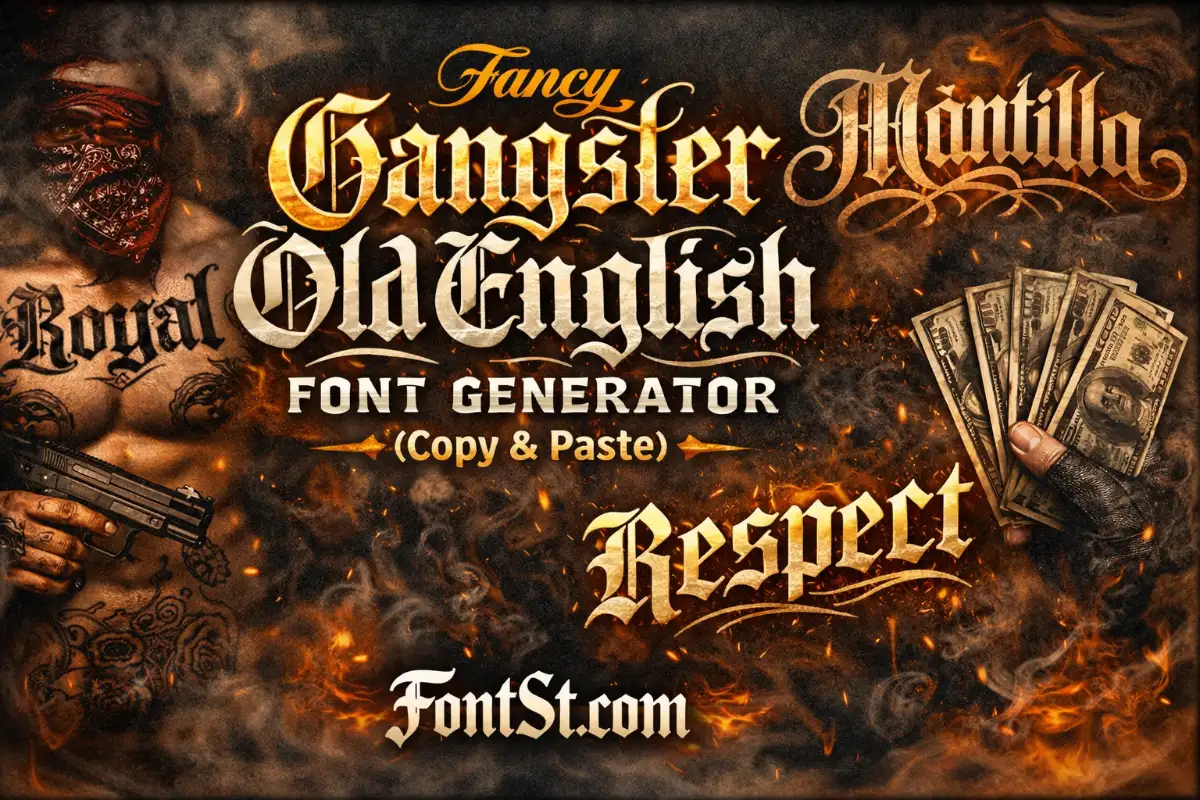
Gangster Font Generator – Numbers & Letters (Copy Paste)
Type your text into the Gangster Font Generator – Numbers & Letters (Copy & Paste) below to get bold street-style lettering instantly. Create names, captions, and number designs in one click, then Copy & Paste the result anywhere you want.
A gangster typeface font is a street-inspired lettering style used for bold identity: names, tags, tattoos, headlines, and social bios. It isn’t one single font. It’s an umbrella term for multiple looks that share a similar vibe—strong, confident, and “street.”
Most people use gangster fonts to get one of these moods:
Old English / Gothic impact (blackletter-style “gangster” look)
Clean bold utility (stencil, block, numbers)
A good gangster typeface should still be readable. The best results usually come from short phrases (1–8 words) or clean number sets (years, codes, lucky numbers).
The phrase original gangsta font usually means “the most authentic classic look” rather than one official font file. Different communities associate “original” with different styles:
a style that matches the context (tattoo vs. graffiti vs. social bio)
On FontSt, the best way to find your “original” is to generate your phrase in multiple gangster outputs and choose the one that feels most natural at the size you’ll actually use.
The best gangster fonts copy and paste are the ones that stay readable after you paste them into your target platform. A style that looks great on a generator page can sometimes feel crowded inside an Instagram bio or a small title overlay.
Quick Picks That Usually Work Everywhere
Clean Chicano lettering for names and short mottos
Old English / Gothic for bold headline impact
Simple script for a smooth “tattoo” vibe
Graffiti handstyle for tags (short words only)
Copy & Paste “Ready” Phrase Templates
Name + number: “Antonio 23”
Short motto: “Stay Solid”
One-word flex: “Respect”
Location/code vibe: “LA 222”
Year statement: “1995”
If you want your text to look premium and not messy, keep it short and choose one strong style instead of stacking multiple effects at once.
gangster numbers fonts are popular for tattoos, jersey-style identity, dates, years, and “lucky number” aesthetics. The key is clarity: numbers should be clean, evenly spaced, and strong at small sizes.
Best Uses For Gangster Numbers
Birth year / anniversary year (e.g., 1995, 2001)
Short codes (e.g., 222, 444)
Area/identity numbers (e.g., 310, 213)
Minimal number-only tattoos
Make Numbers Look Like A Real Design
Keep numbers on one line
Add spacing if the style is heavy
Avoid extra symbols between digits
Preview at intended size (numbers can blur if too detailed)
If you’re combining numbers with lettering, try a two-line layout:
A calligraphy gangster font is usually a more refined, “crafted” version of gangster lettering—still bold, but with better rhythm and a premium feel. It’s often used for:
One-word statements (“Loyal”, “Family”, “Real”)
Short titles that need elegance
Tattoos that want style without looking chaotic
How To Keep Calligraphy Gangster Text Clean
Stick to 1–3 words
Avoid extra symbols around the text
Choose the output with the clearest inner shapes
Use strong contrast and spacing if placing it on an image
Calligraphy gangster styles are easy to overdo. Simpler usually looks more expensive.
Gangster fonts come in multiple families. Below are the most common style directions people mean—especially in tattoo, graffiti, and street-lettering contexts.
Gangster Wildstyle Graffiti Fonts
Wildstyle is the most complex graffiti direction: sharp angles, stacked connections, and high energy. It looks amazing in artwork but can become unreadable if the word is long.
Best for:
Short tags (1–5 letters)
Poster-style titles
Art projects and covers
Tip: choose wildstyle only when you can make it big enough to read.
Gangster Chicano Number Fonts
Chicano-inspired numbers usually look bold and clean, often used for years and identity numbers.
Best for:
“1995”, “2001”, “222”, “444”
Date tattoos and number-only designs
Minimal layouts where clarity matters
Gangster Chicano Lettering Alphabet
This usually refers to Chicano-style lettering for initials and names—clean, classic, tattoo-friendly.
Best for:
Single-letter initials (A, M, R, S)
Two-letter monograms
Name tattoos (short to medium)
Tip: test your initials at real size—some letters look better uppercase.
This phrase often points to Chicano/blackletter-inspired street lettering. It’s bold, cultural, and usually used for names, initials, and statement words.
Best for:
Names + short mottos
Emblem-style layouts
Strong tattoo concepts
Fancy Gangster Old English Font
This is the classic “gangster = Old English/blackletter” vibe, but dressed up—more decorative, more dramatic.
For the strongest look and readability, keep it to 1–8 words. For graffiti/wildstyle outputs, even 1–5 letters often looks best.
Gangster fonts aren’t just one style—they’re a family of street-inspired looks ranging from wildstyle graffiti to Chicano tattoo lettering and bold Old English impact. Use FontSt to generate gangster letters and numbers instantly, then Copy & Paste your favorite output into bios, captions, and design drafts. Keep it short, keep it readable, and choose the style that matches your vibe—tattoo, tag, script, or classic Old English.